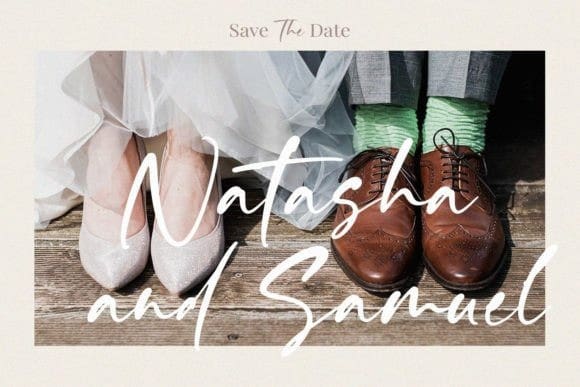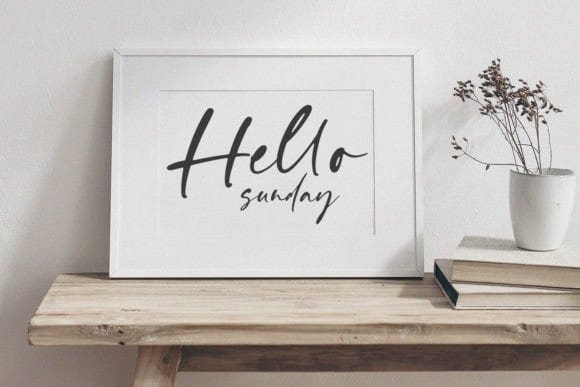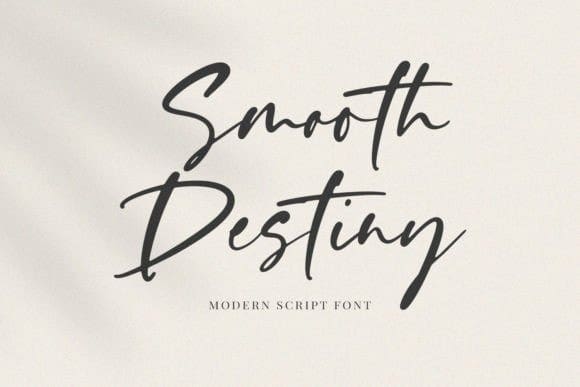
Smooth Destiny Font
Smooth Destiny Font – A Handwritten Script Font created with great care, especially for you 😊. SmoothDestiny is perfect for product packaging, branding project, magazines, social media, weddings, or just used to express words above the background.